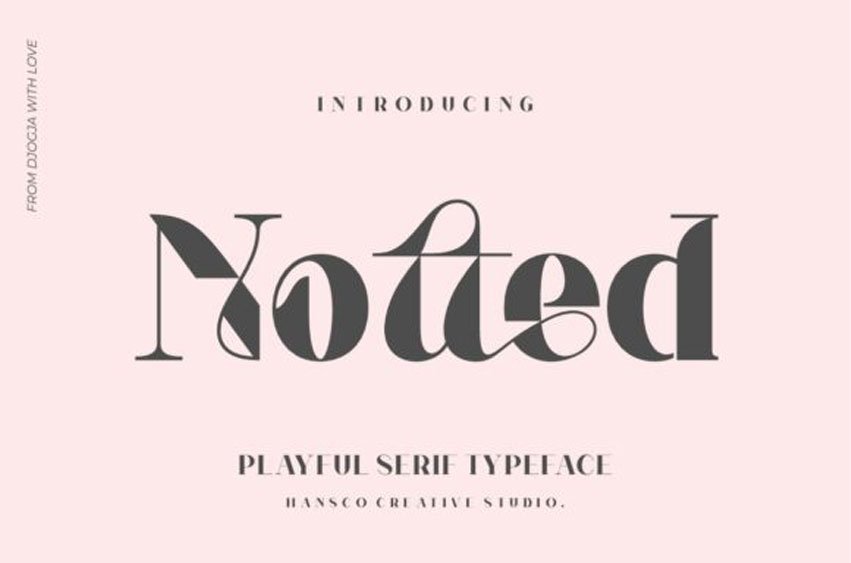
Notted Font is a bold and elegant serif font.
This original look will appeal to a wide range of crafty ideas, from letterheads and titles to stationery.